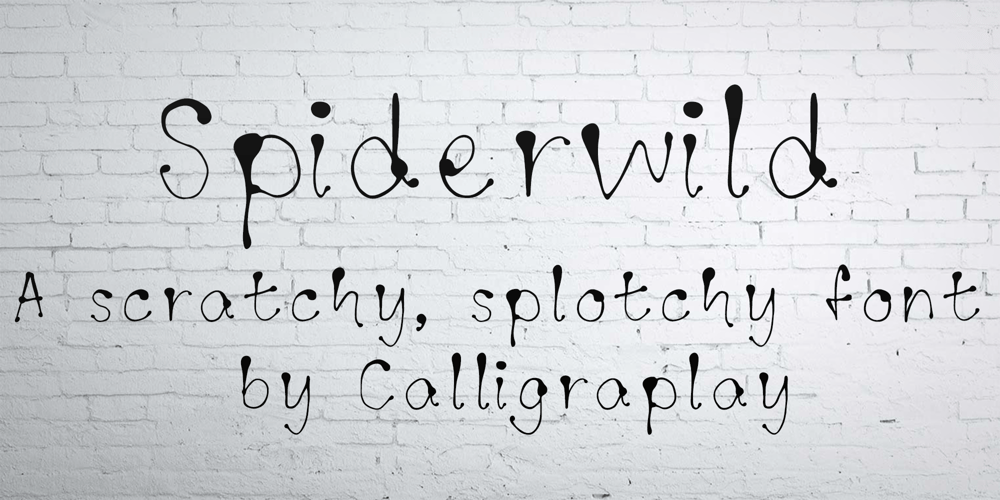
Spiderwild Font Family was designed by Sarah-Jane Loveday and published by Calligraplay. Spiderwild contains 1 styles and family package options. Spiderwild is a scratchy, splotchy font especially perfect for spooky layouts, but also good for any quirky project that needs a unique and hand-drawn typeface.Use it for Halloween cards, social media tiles, posters or banners. Spiderwild is multilingual with a total of 424 glyphs.